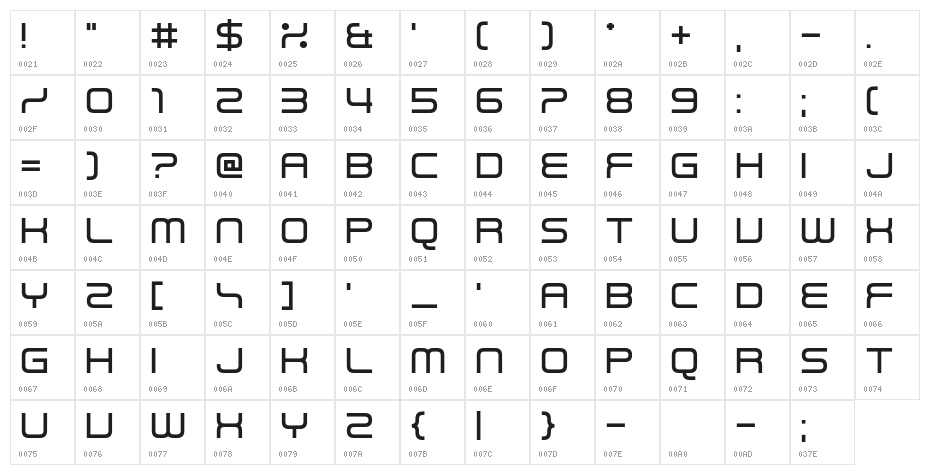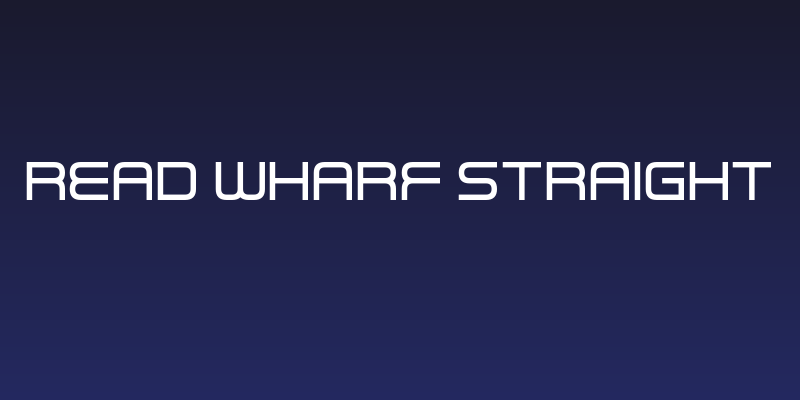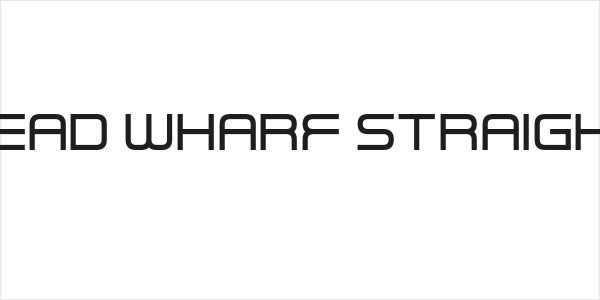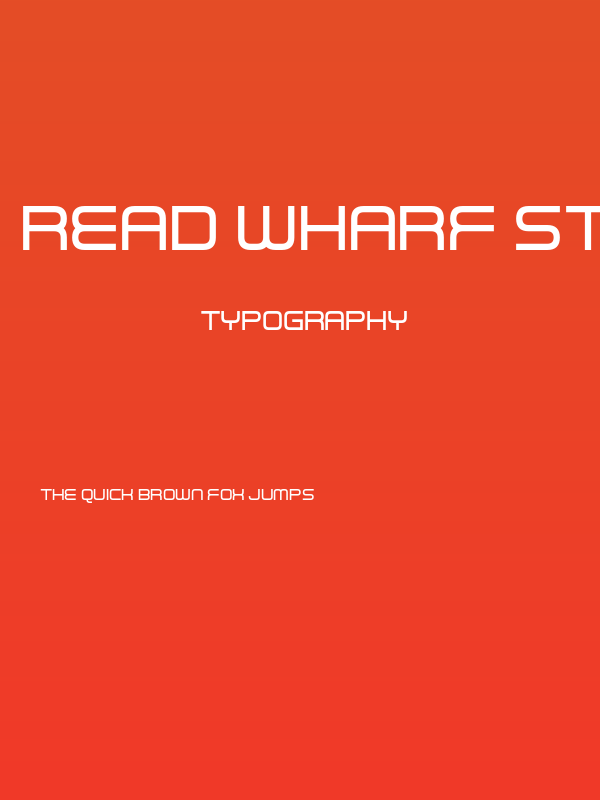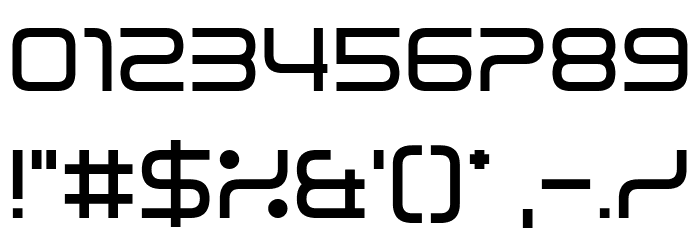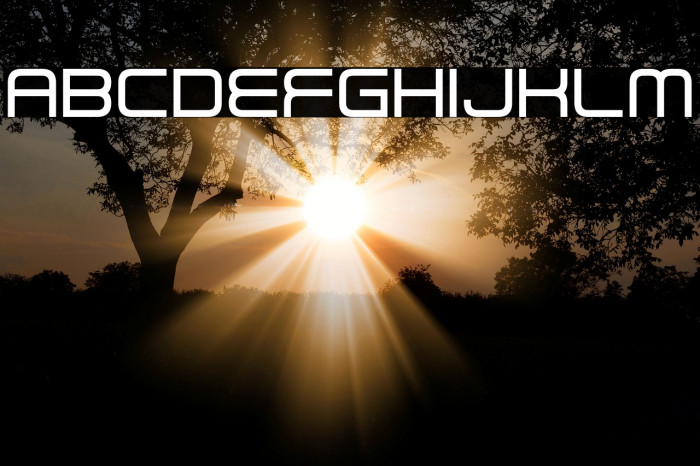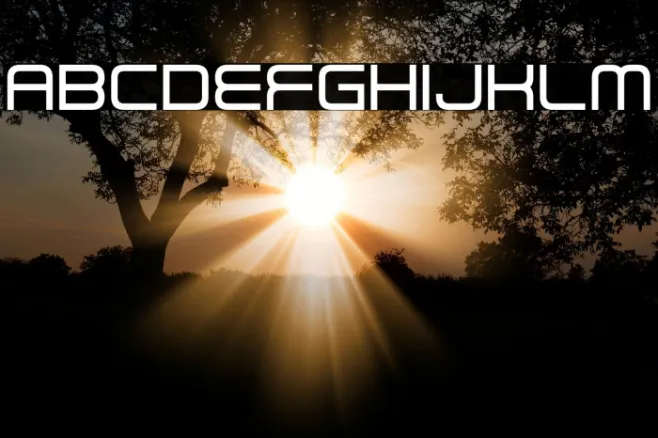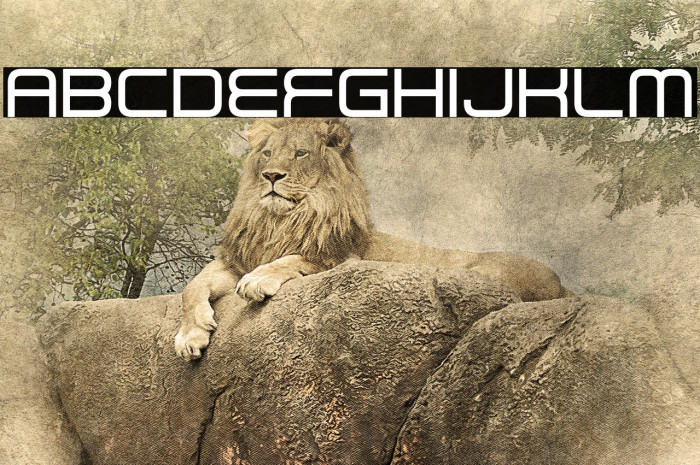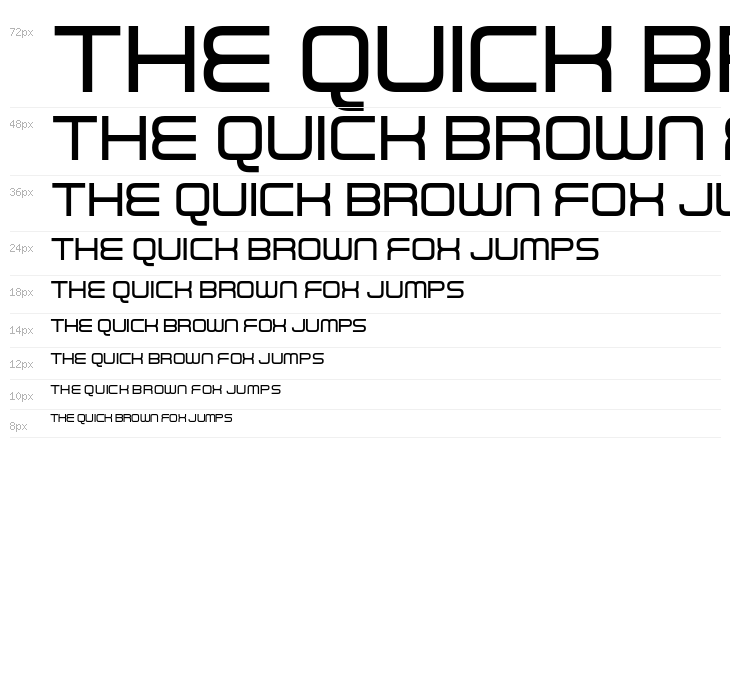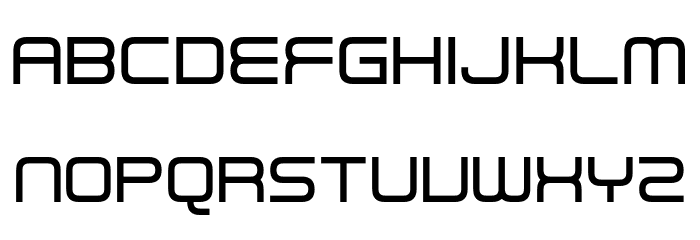
Read Wharf Straight Font
Read Wharf Straight Description
This font features a modern, geometric design with clean lines and rounded edges, creating a futuristic and sleek appearance. The uniformity in stroke width across all characters gives it a cohesive and balanced look. Uppercase and lowercase letters maintain a consistent height, contributing to its orderly and structured feel. The numerals are designed to match the alphabetic characters, ensuring a seamless integration in any text. Special characters are crafted with the same attention to detail, enhancing the font's versatility. Its simplicity and clarity make it highly legible, even at smaller sizes.
| Use Case | Logos, Digital interfaces, Headlines |
| Proposed Projects | Ideal for tech branding, digital interfaces, and modern advertising campaigns. |